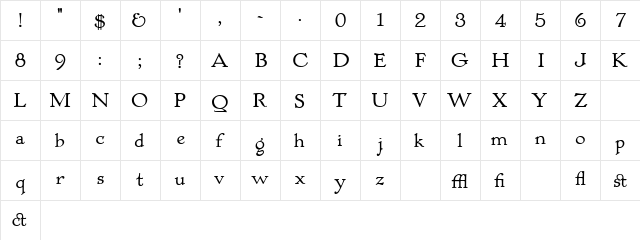
Colwell HPLHS
| Year | 1923 |
Design Context for Colwell Typeface
Colwell is a composed and adaptable typeface that performs quietly and consistently across a wide range of design contexts.